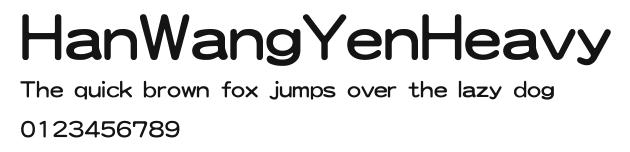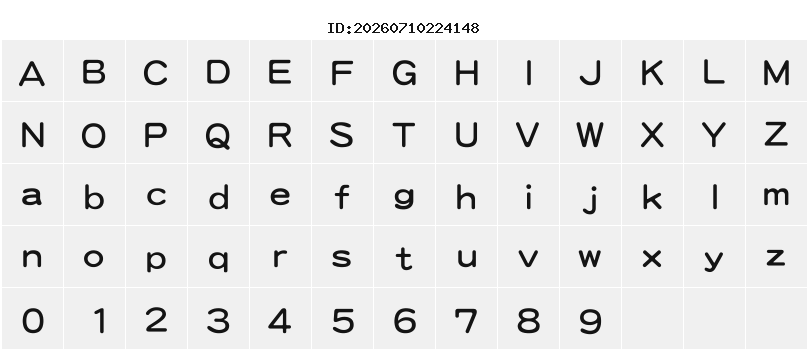
About HanWangYenHeavy.ttf
HanWangYenHeavy.ttf is a modern, elegant sans-serif font designed for ultimate readability and visual harmony. Perfect for branding, headlines, web design, and print materials.